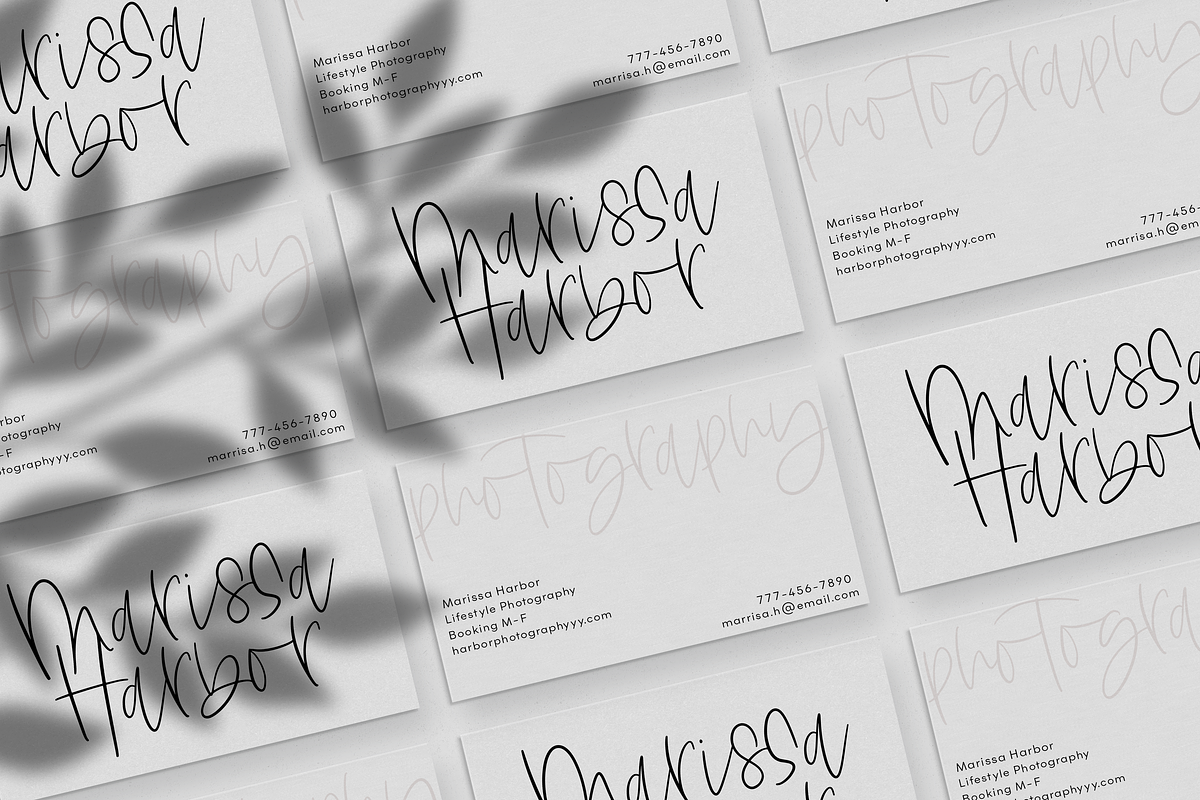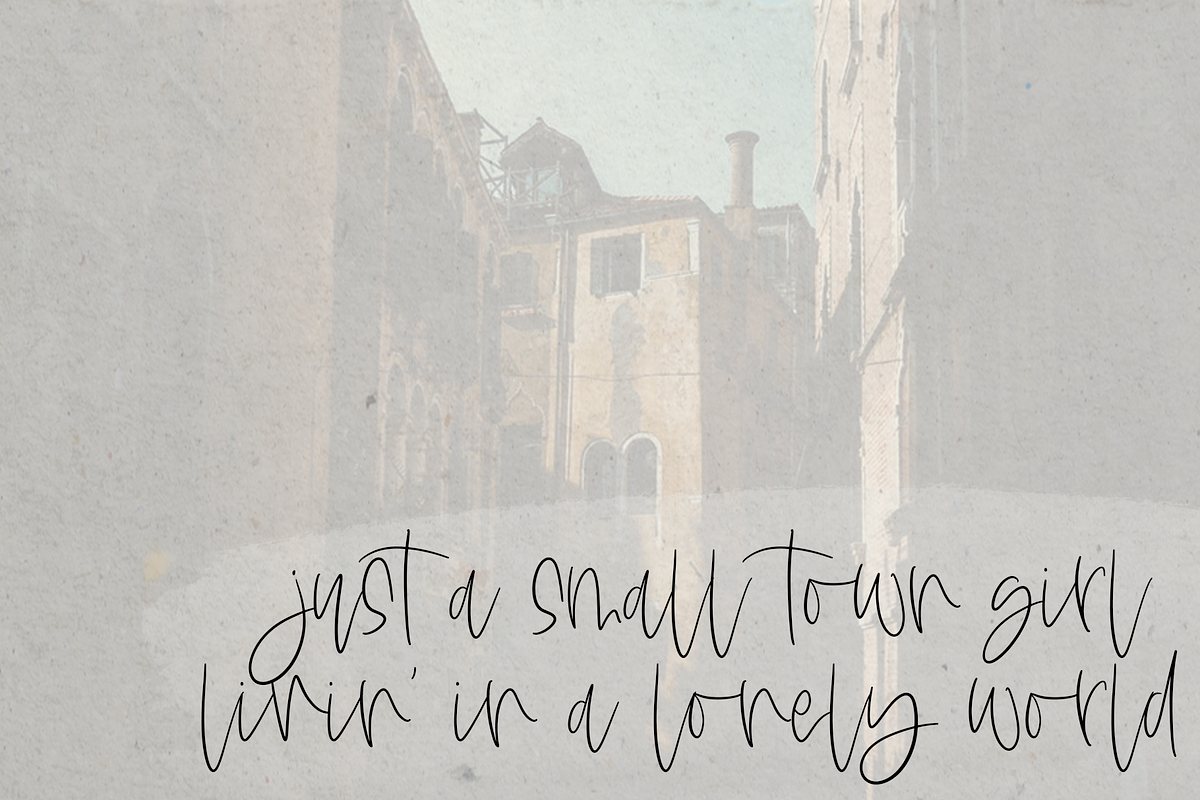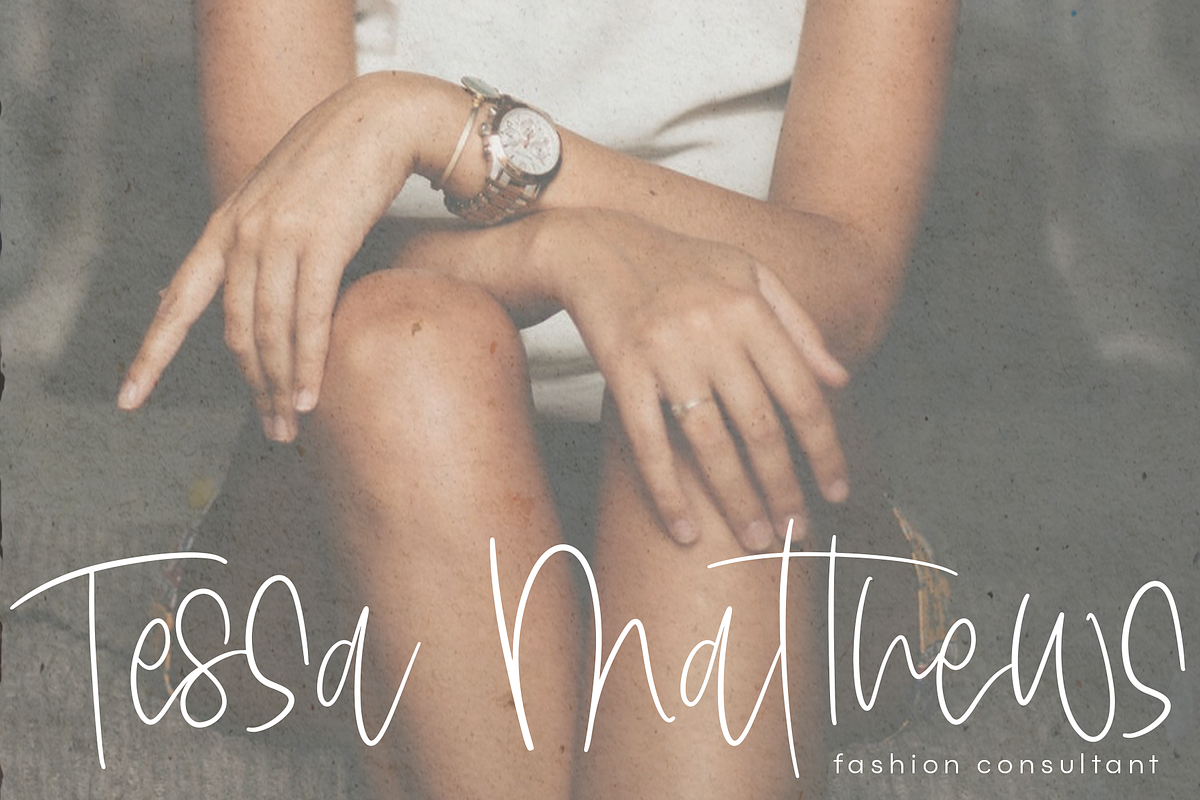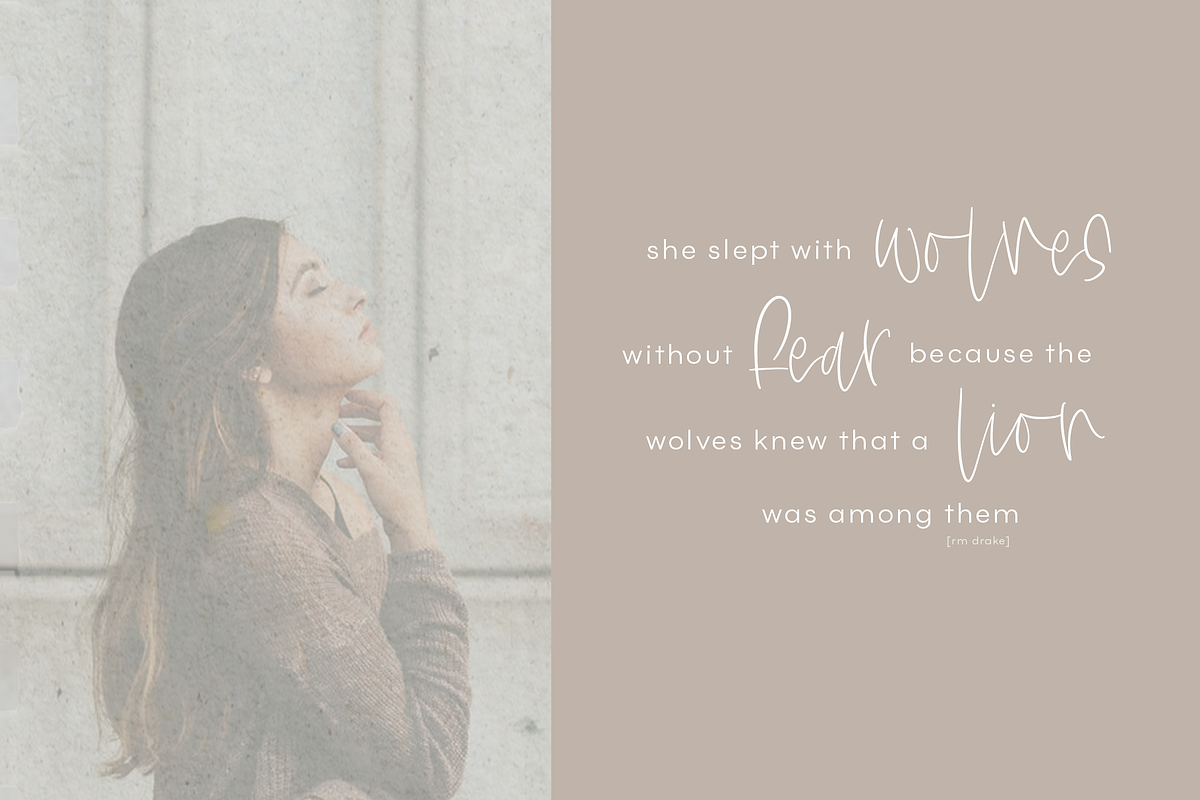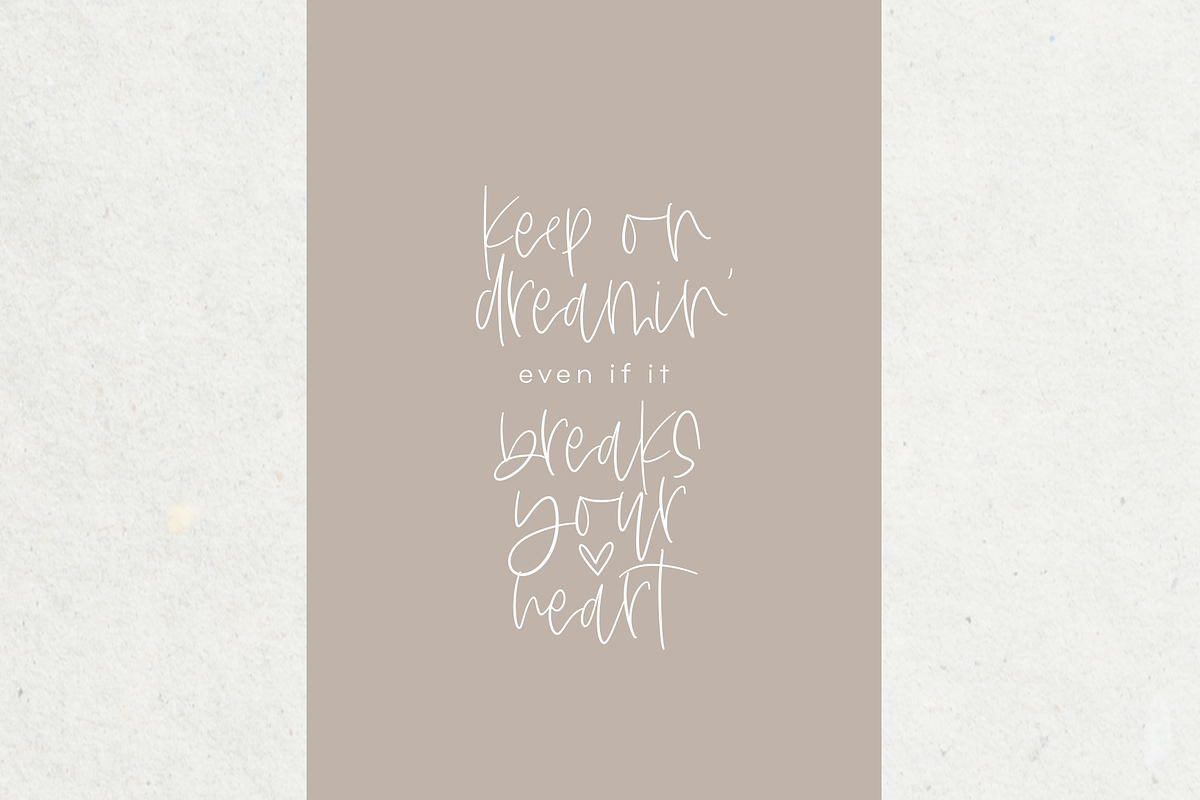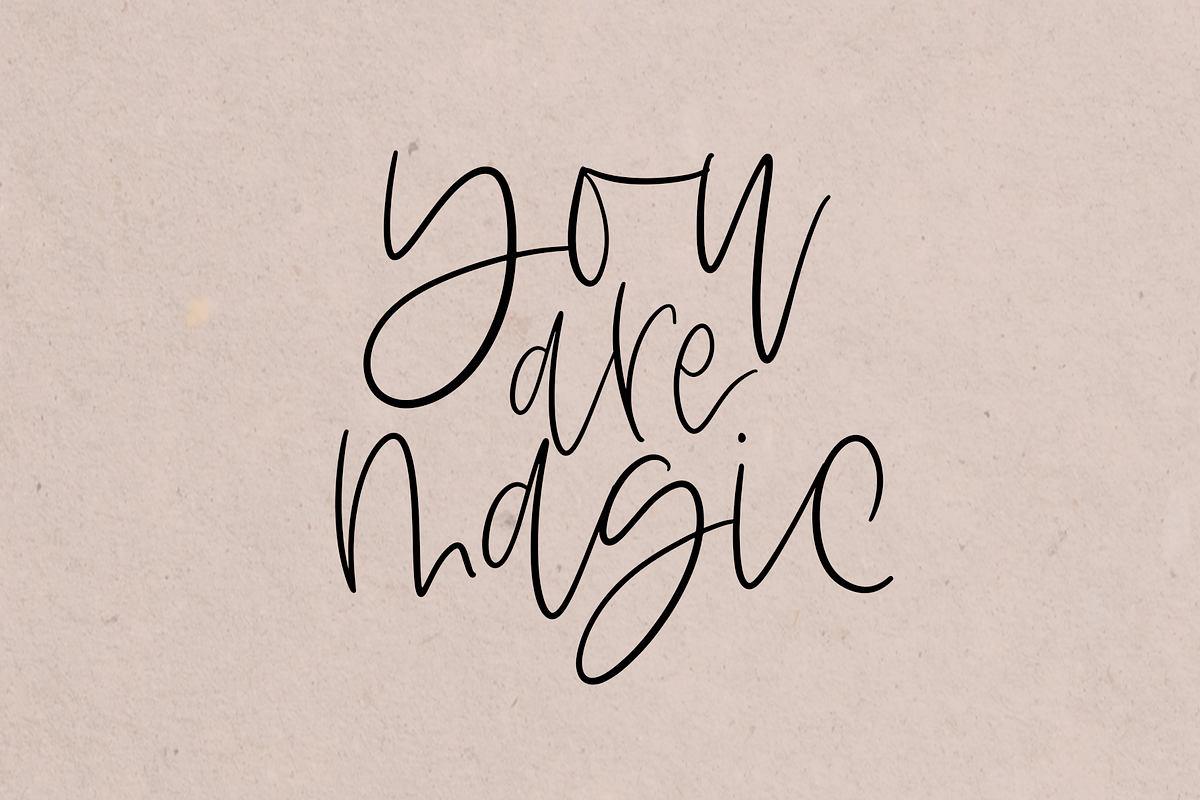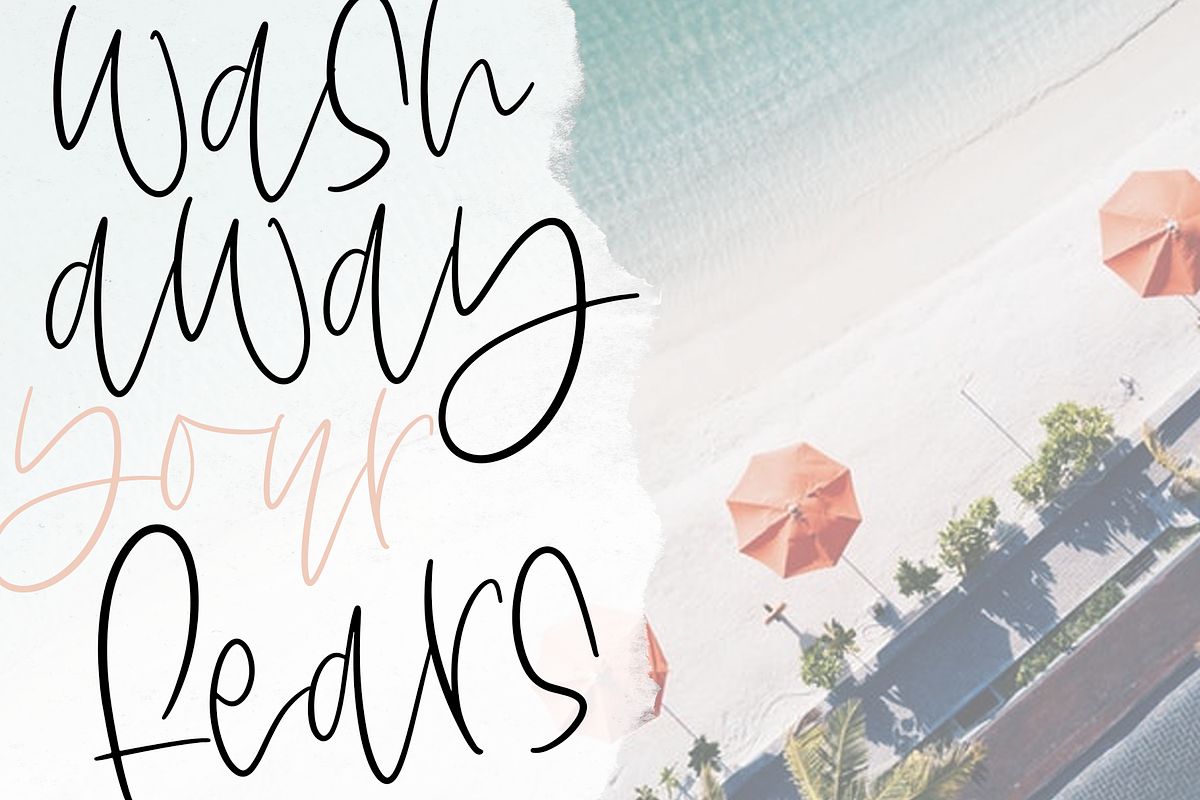
The Messa - Handwritten Script Font
The Messa is an elegant yet modern, handwritten font.
This font is perfect for modern projects, headings, blogs, logos, brandings, invitations and more!
Why The Messa - Handwritten Script Font is worth a look
The Messa - Handwritten Script Font by KA Designs fits naturally into Branding, posters, packaging, typography.